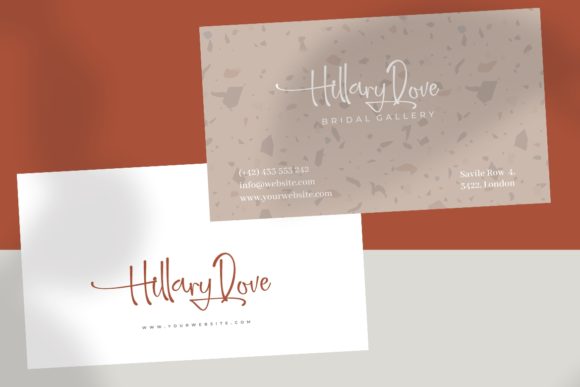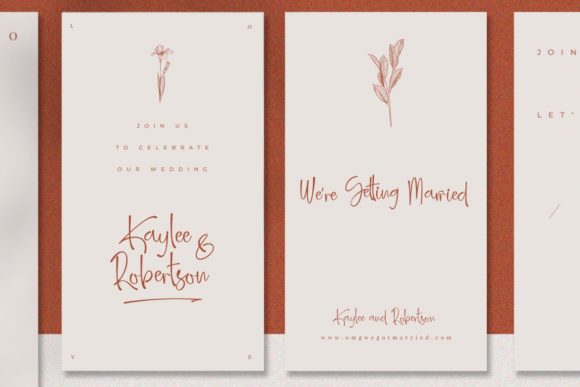
Amellia Ink Font
Amellia Ink is a beautiful, elegant and natural handwritten font. This font is perfect for creating logos, watermarks, branding, wedding invitations, quotes, or anything else you wish to design. This font is PUA encoded which means you can access all of the glyphs and swashes with ease!